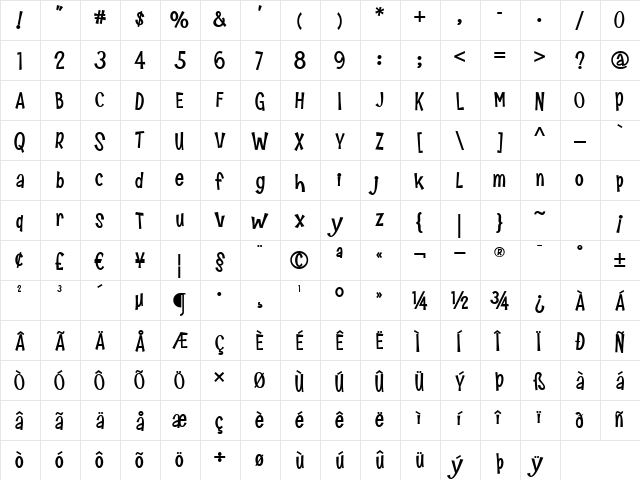
Snoopy Snails NF Regular
Design Context for Snoopy Snails NF Typeface
Snoopy Snails NF is a composed and adaptable typeface that performs quietly and consistently across a wide range of design contexts.